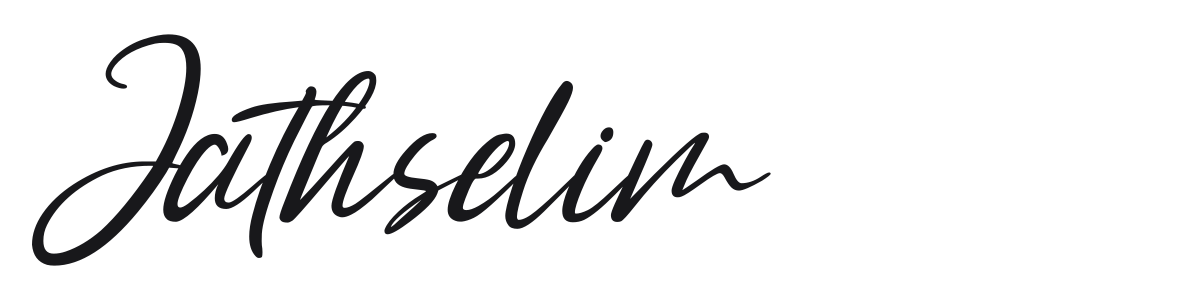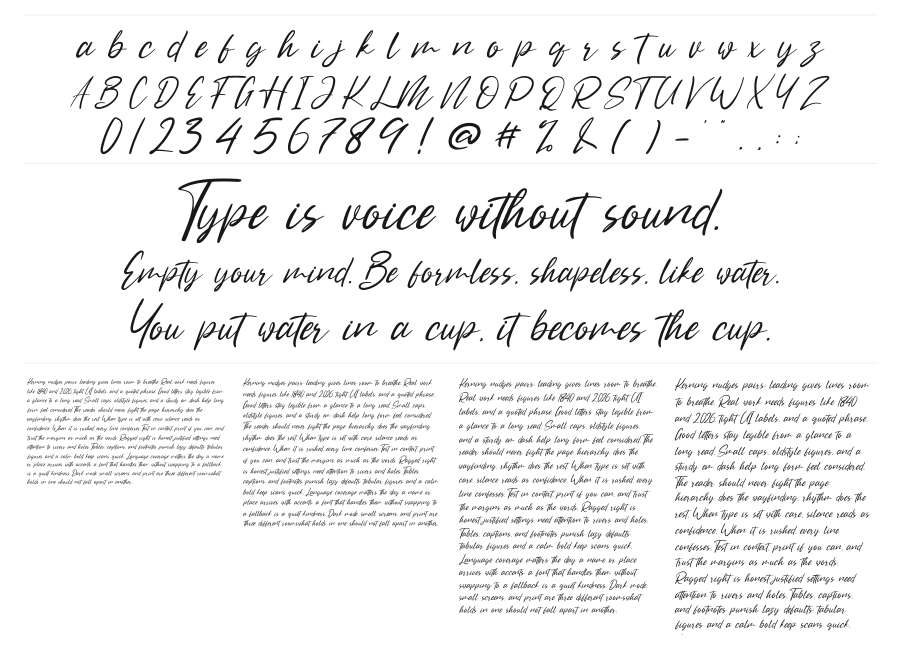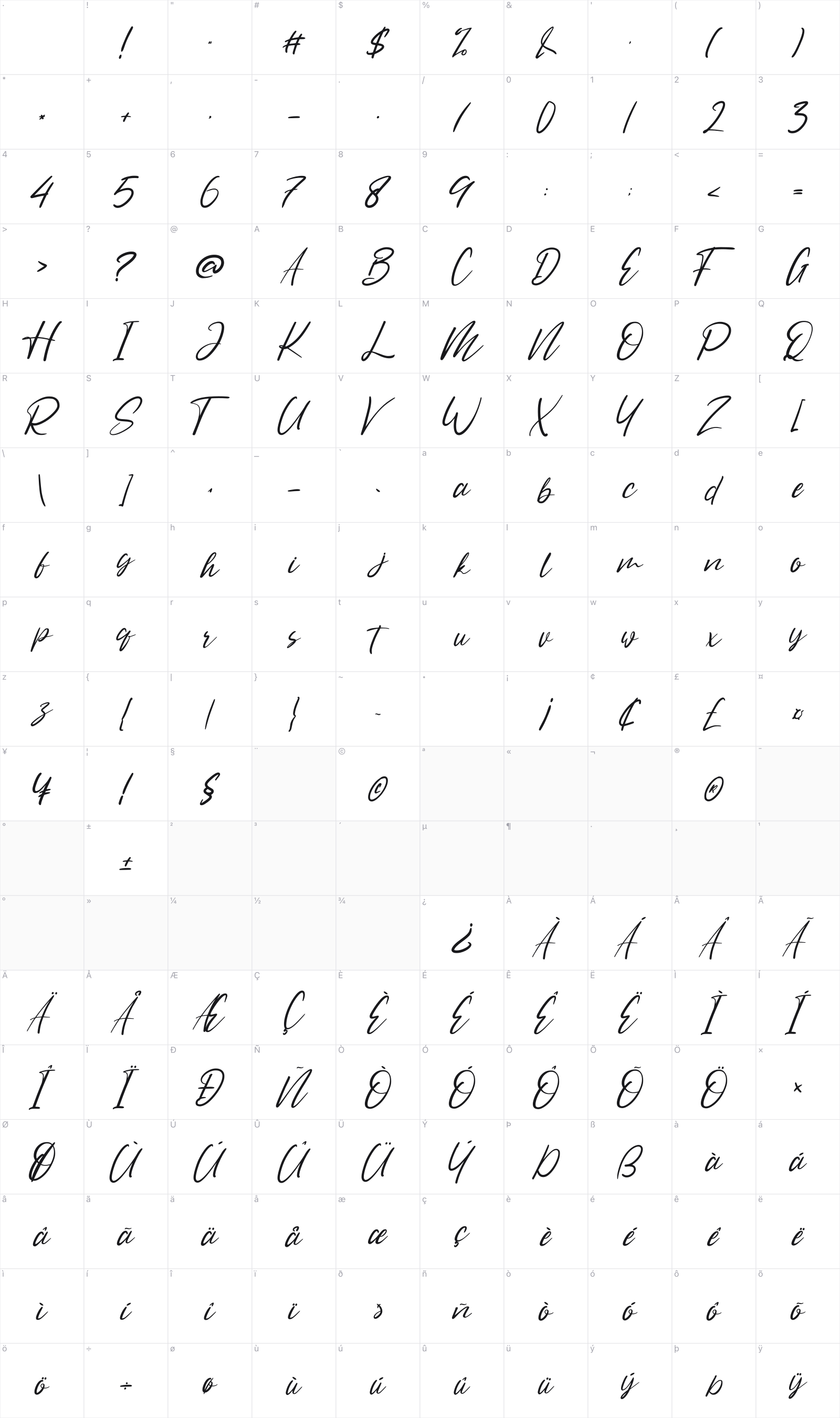
Jathselim
Jathselim is a contemporary brush script from Stringlabs with fluid, swashing strokes and the natural contrast of a real ink pen. Ascenders and descenders loop and interlock to give headlines an organic, handcrafted rhythm. It sits comfortably in branding, packaging, and editorial work where warmth and personality matter.